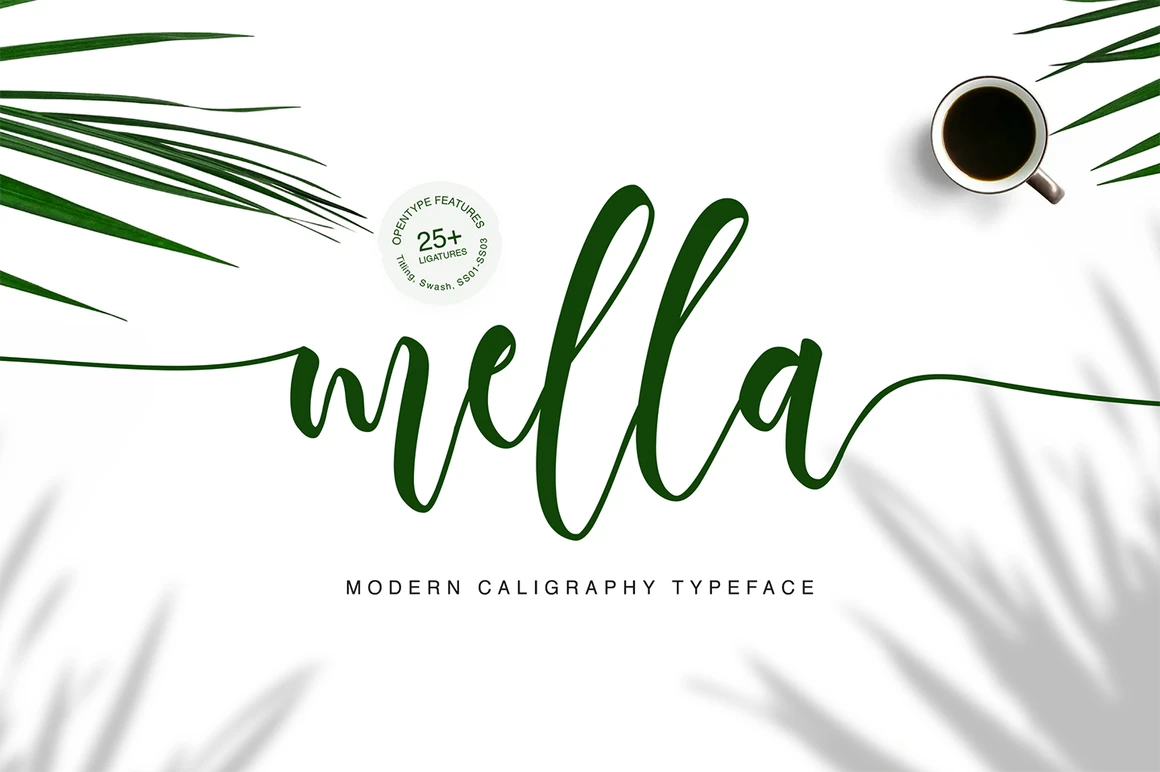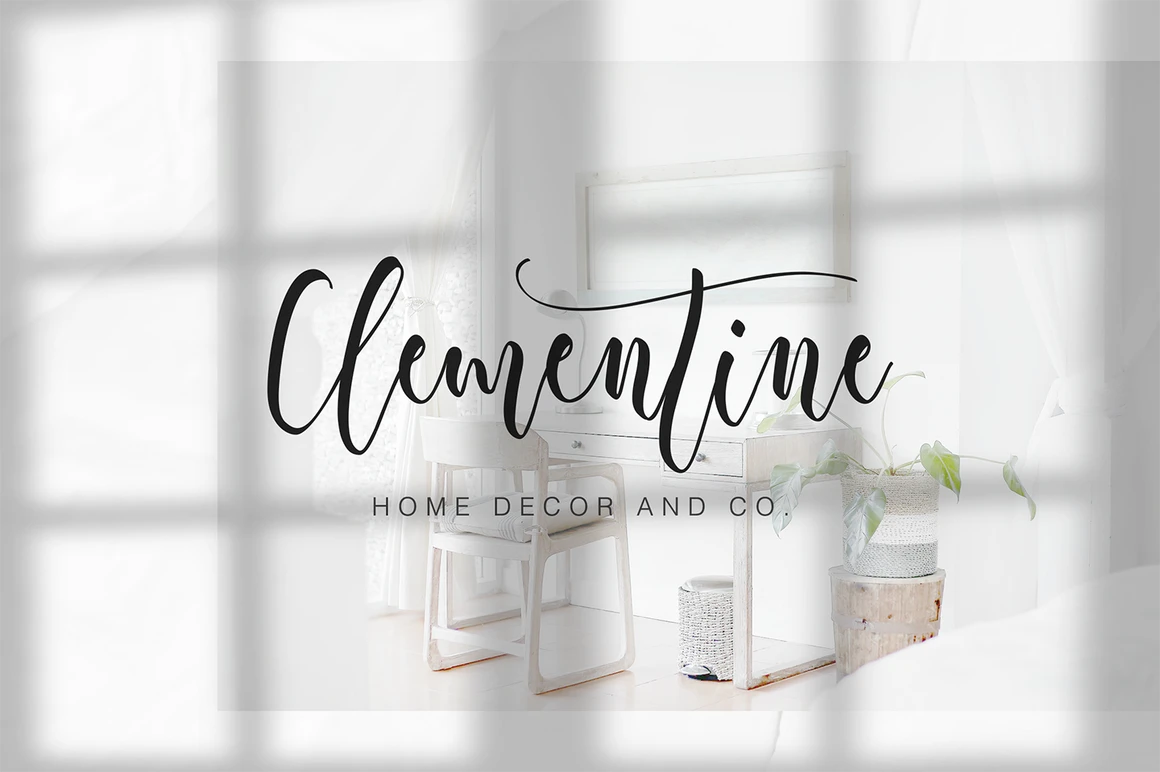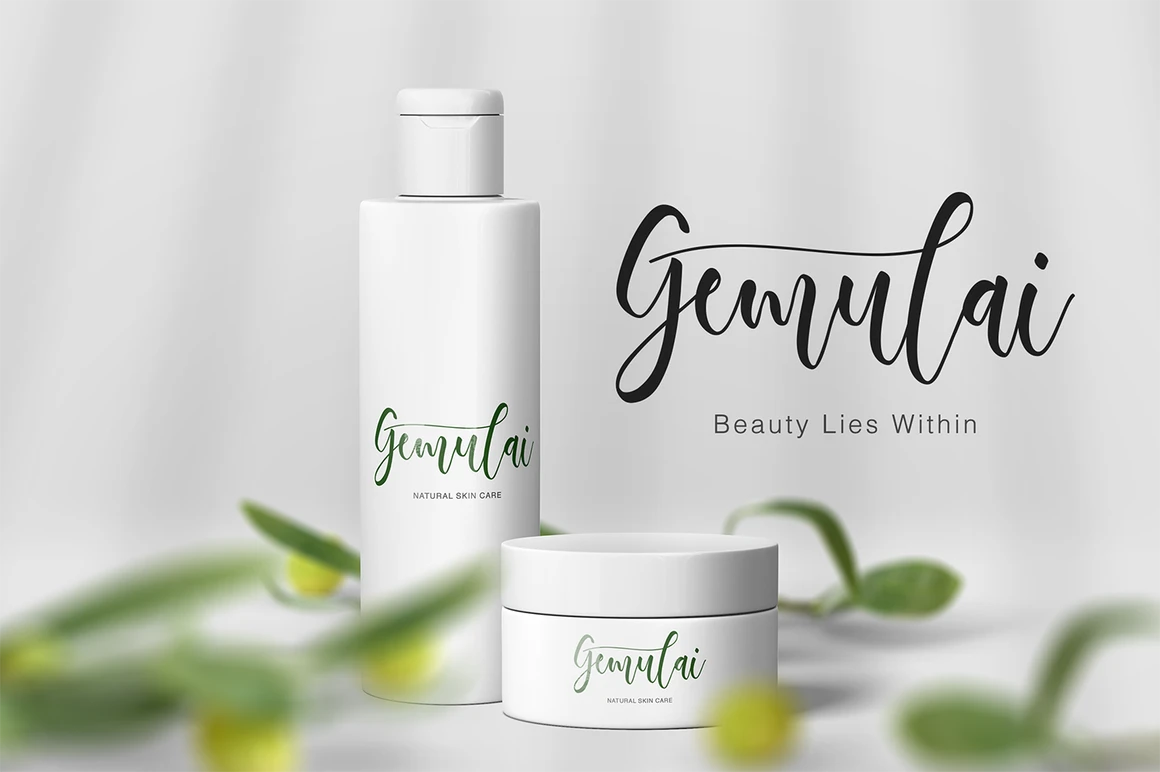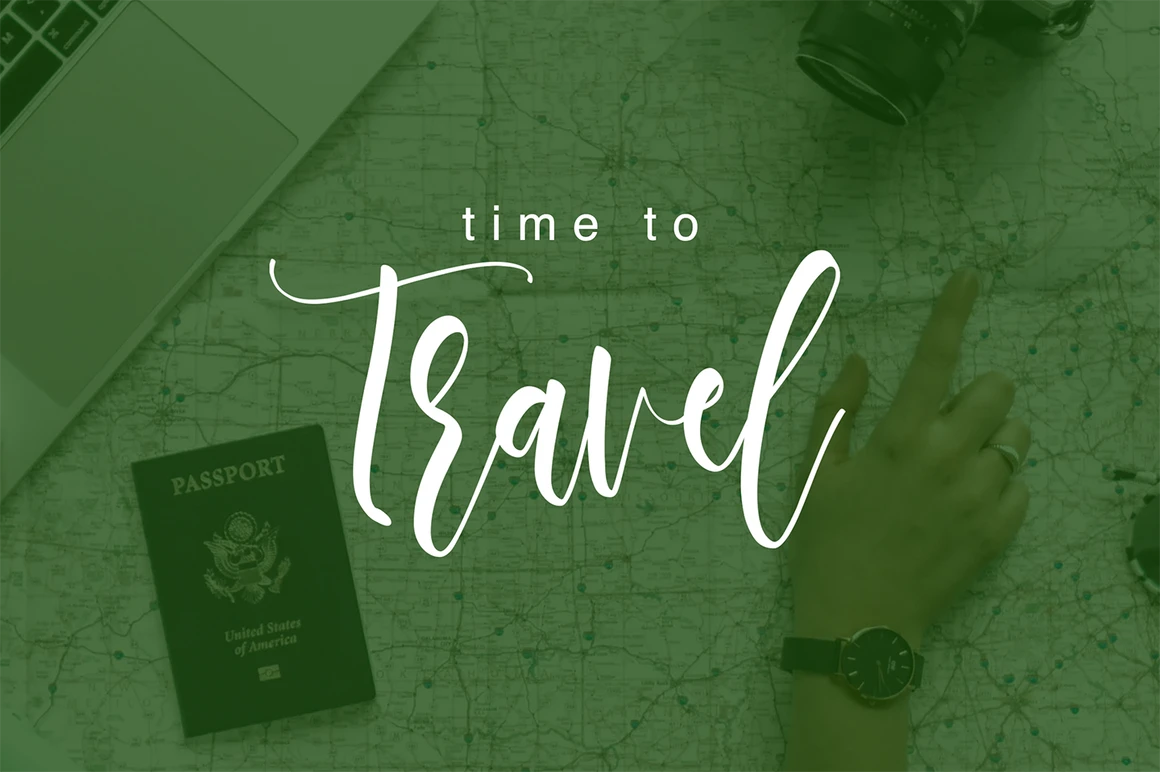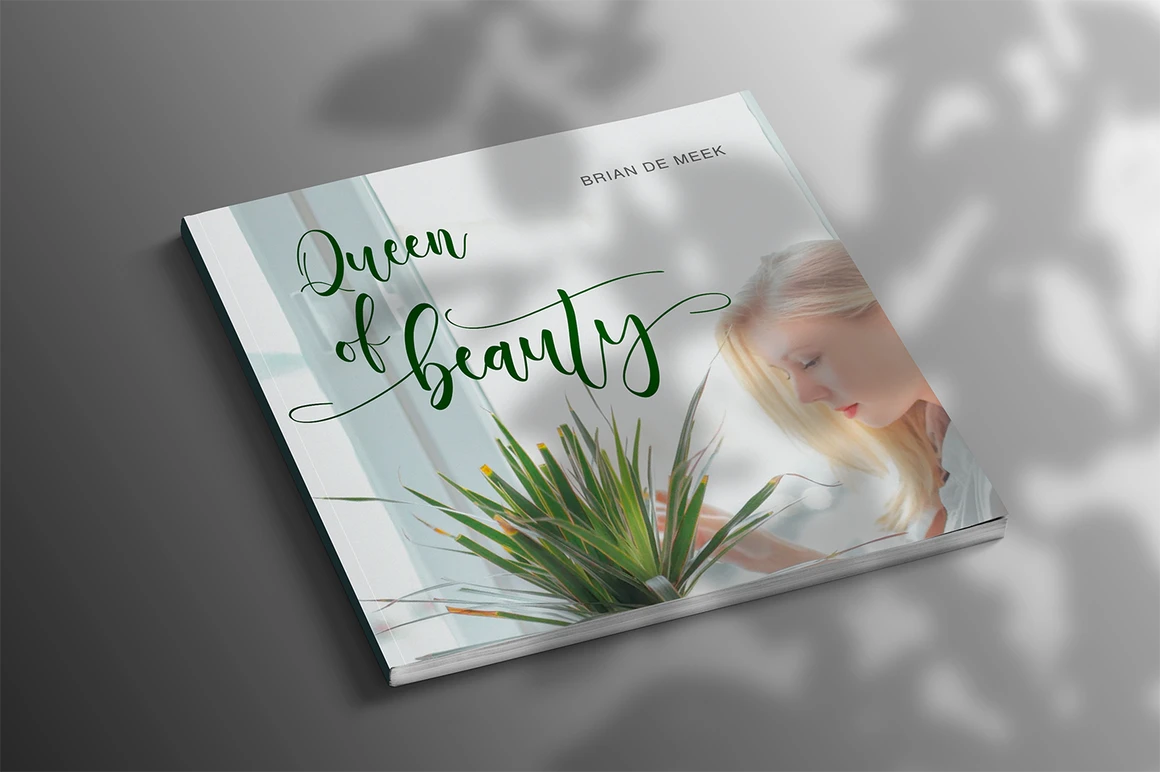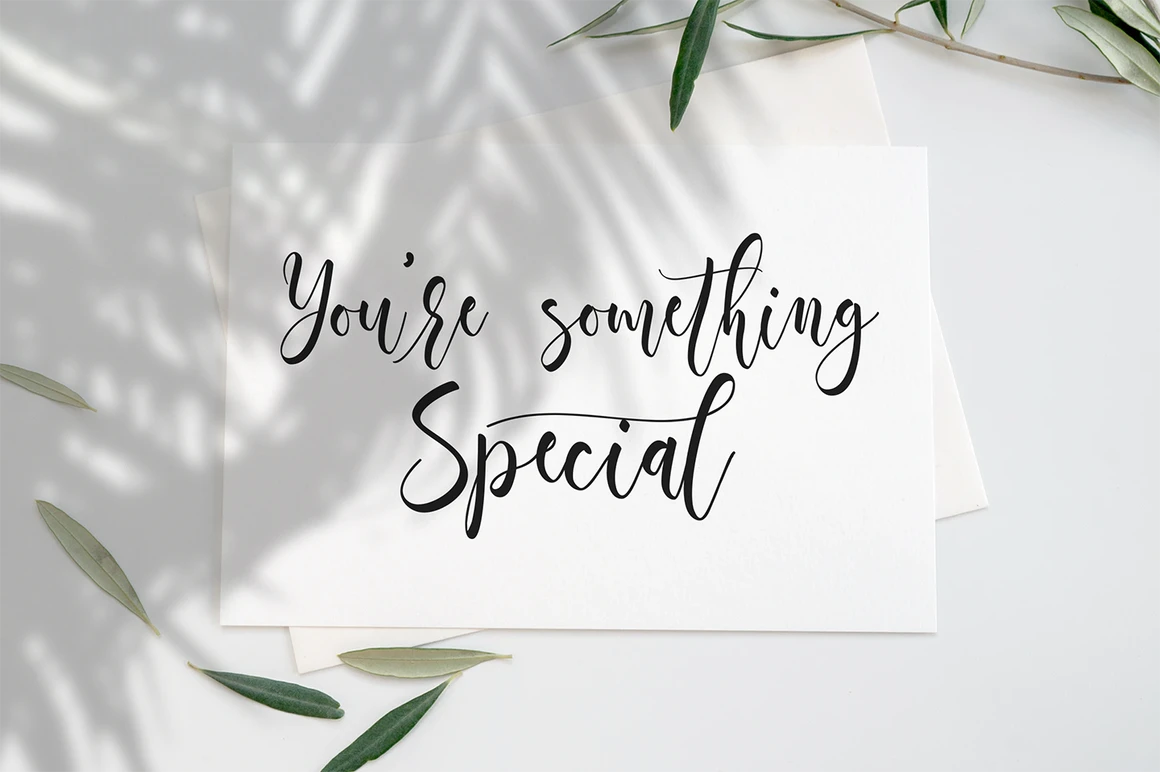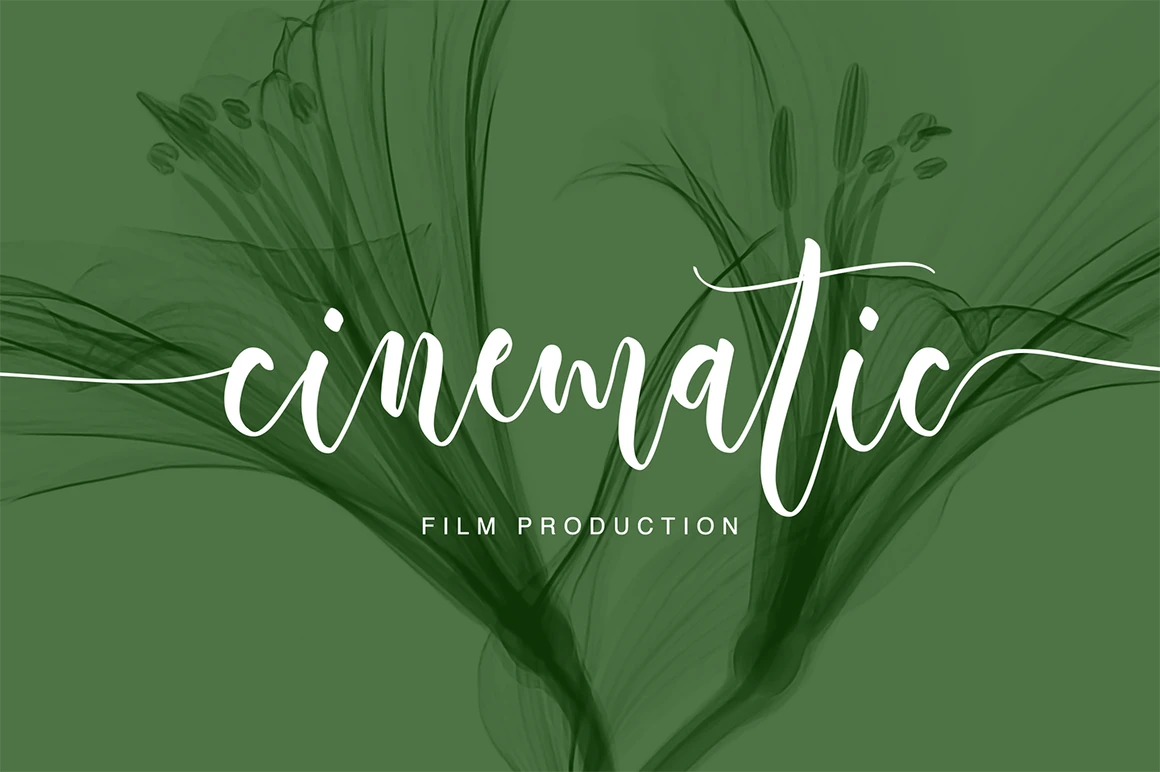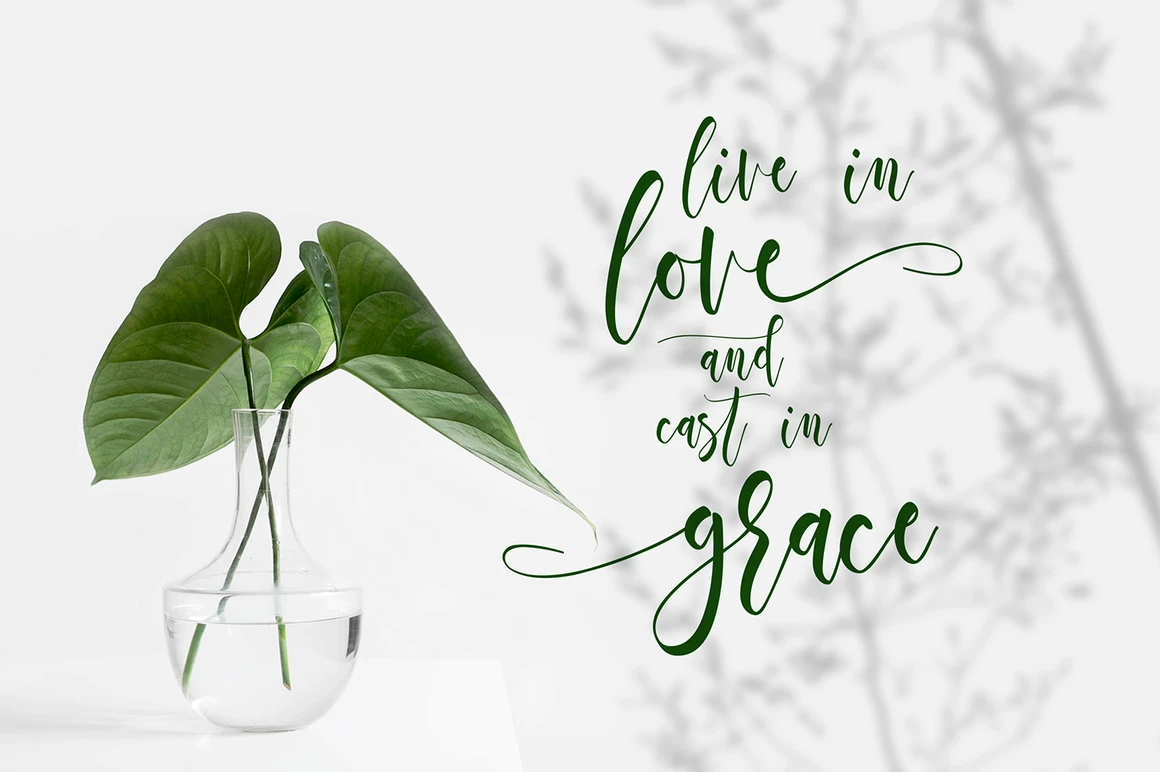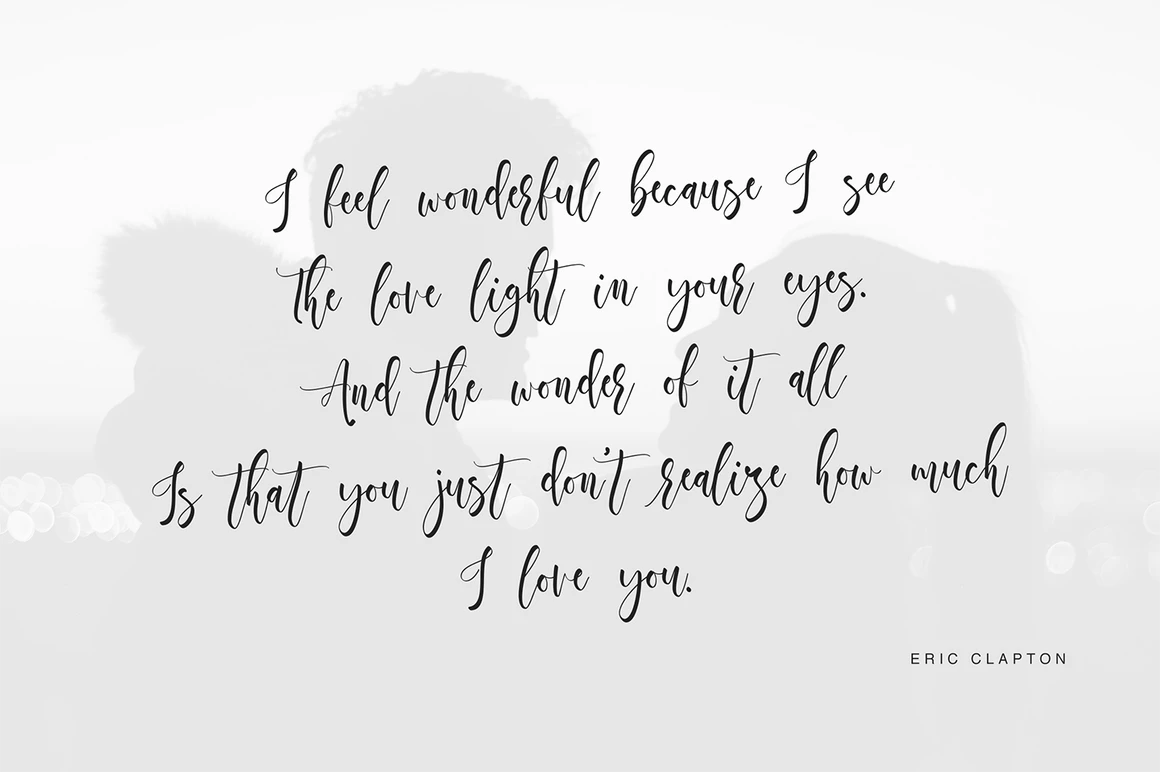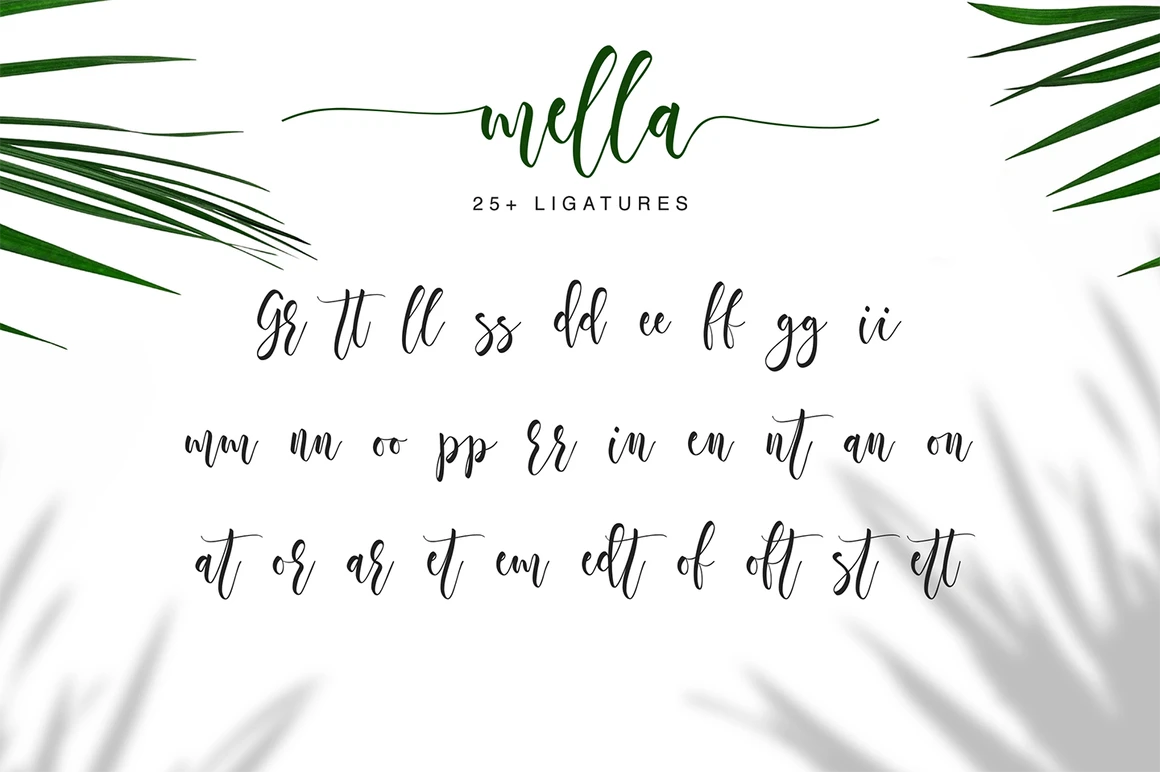
Mella is a modern calligraphy that is very elegant and beautiful. Contains a full set of lower & uppercase letters, a large range of punctuation, numerals, and multilingual support. Perfect for adding an elegant and unique touch to your lettering projects and branding. You can create a Wedding lettering or beautiful frame for your home, business, for book covers, stationery, marketing, magazines and many more.